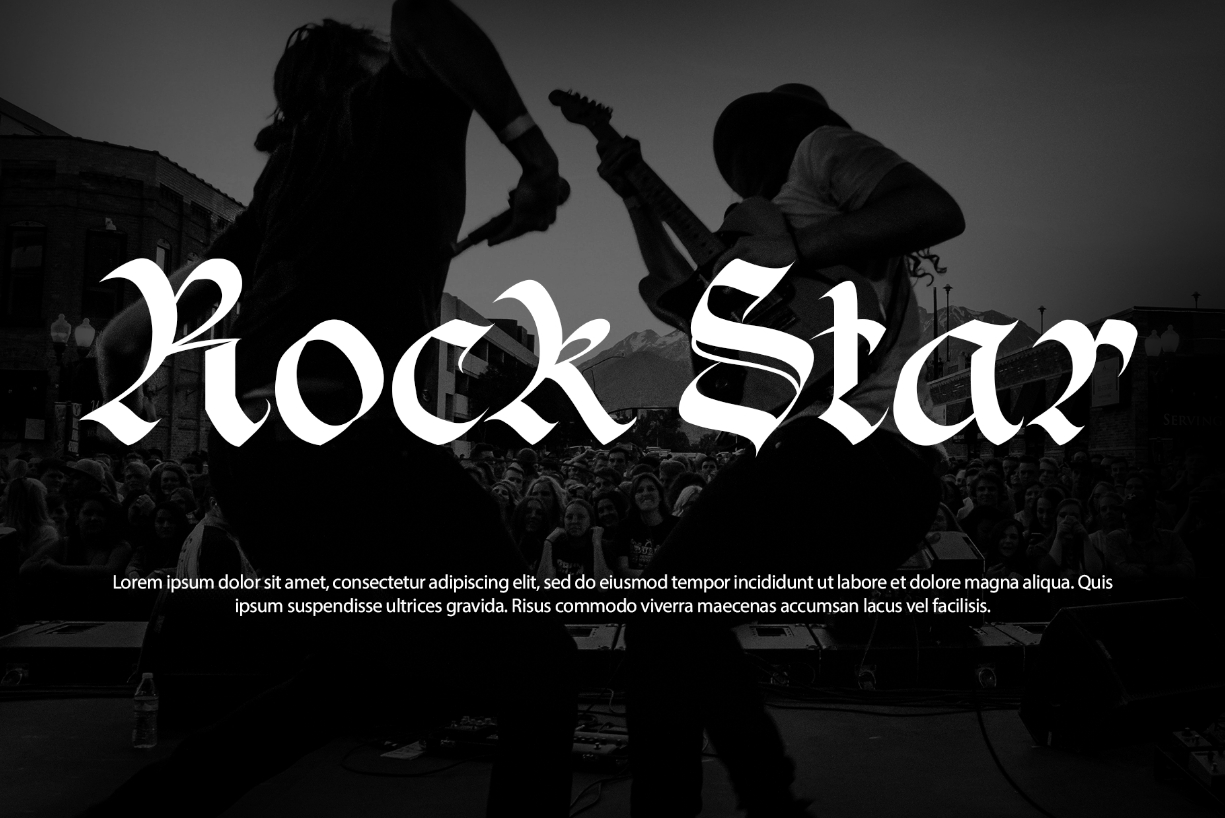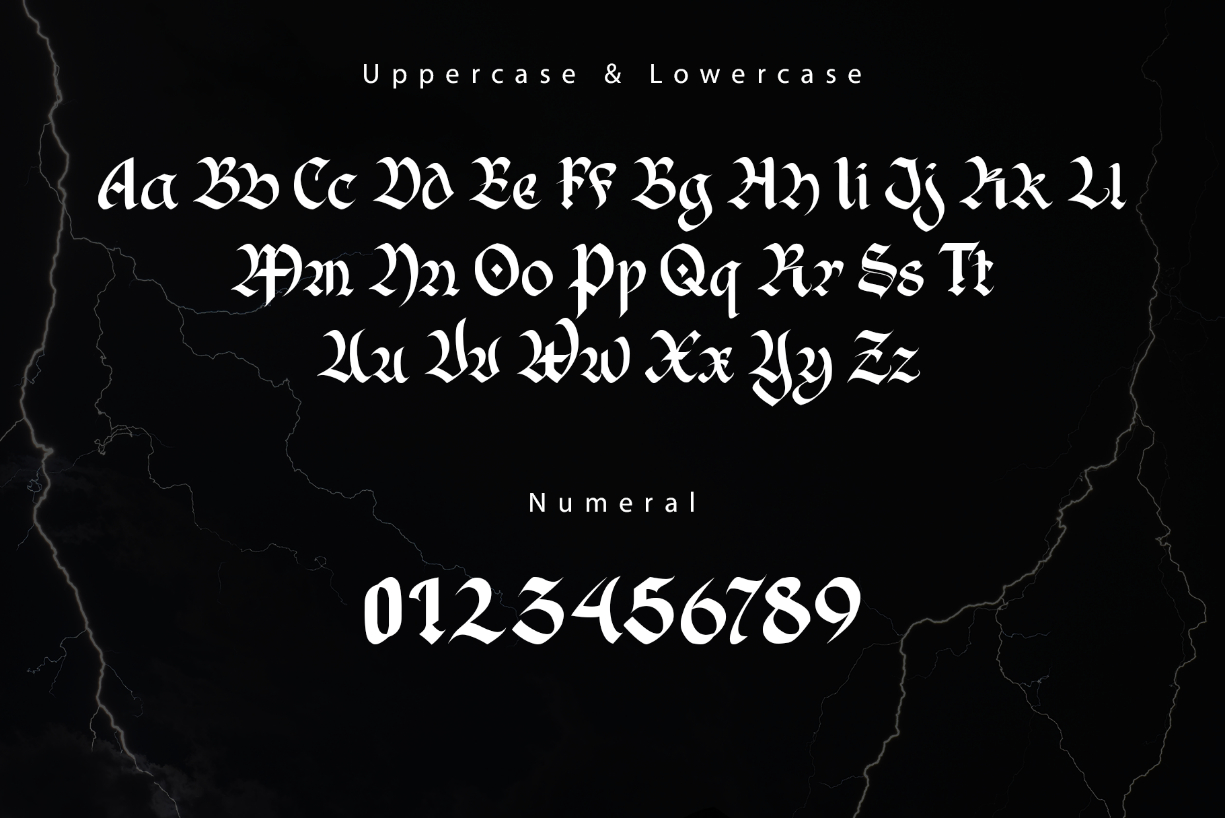
Black Rain Font
Black Rain is a modern and playful handwritten script font. It’s great for crafters and designers. Compatible with tools such as Photoshop and Silhouette design studio. Its playfulness can make it great for creative projects. This font is PUA encoded which means you can access all of the amazing glyphs and ligatures with ease!
Created by Kong Font Studio